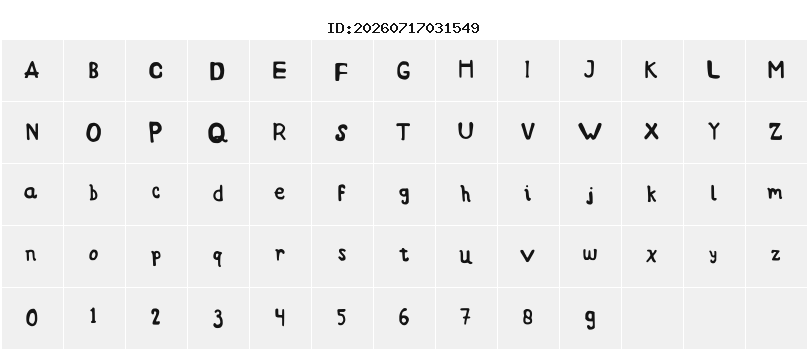
bundafont Preview
• Font Name: bundafont
• Full Font Name: bundafont
• PostScript Name: bundafont
About bundafont.ttf
bundafont.ttf is a modern, elegant sans-serif font designed for ultimate readability and visual harmony. Perfect for branding, headlines, web design, and print materials.